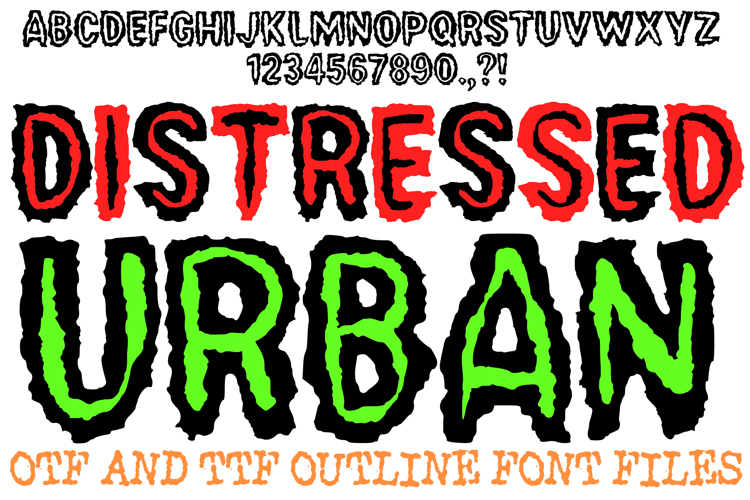
Give your designs a raw, high-voltage edge with the Distressed Urban Font! This hand-drawn display alphabet features heavy, vibrating silhouettes characterized by a unique double-layered effect: a thick, jagged black outline surrounding a bright white inner core. It is an exceptional choice for underground music posters, edgy streetwear branding, high-action gaming titles, and bold social media graphics that need an "electrified" urban look.
The "static glow" aesthetic creates an intense visual energy, mimicking the look of a flickering neon sign or a high-motion blur. Whether you are designing for a modern streetwear label or creating a gritty cinematic title, the Distressed Urban Font delivers a powerful, distorted vibe that vibrates off the screen or page.
Why This Font Hits Different:
Double-Layered Static Effect: Each character features a bold, rough-cut outline paired with a distinct inner "pulse" line for a high-energy glow.
Vibrating Jagged Contours: The uneven, "distorted" edges suggest motion and friction, perfect for urban and industrial themes.
High Contrast Visibility: The bright center ensures that your text remains legible and sharp even against dark or busy backgrounds.